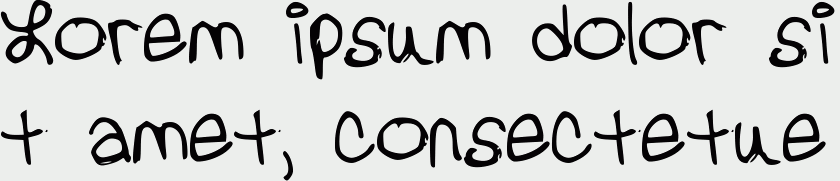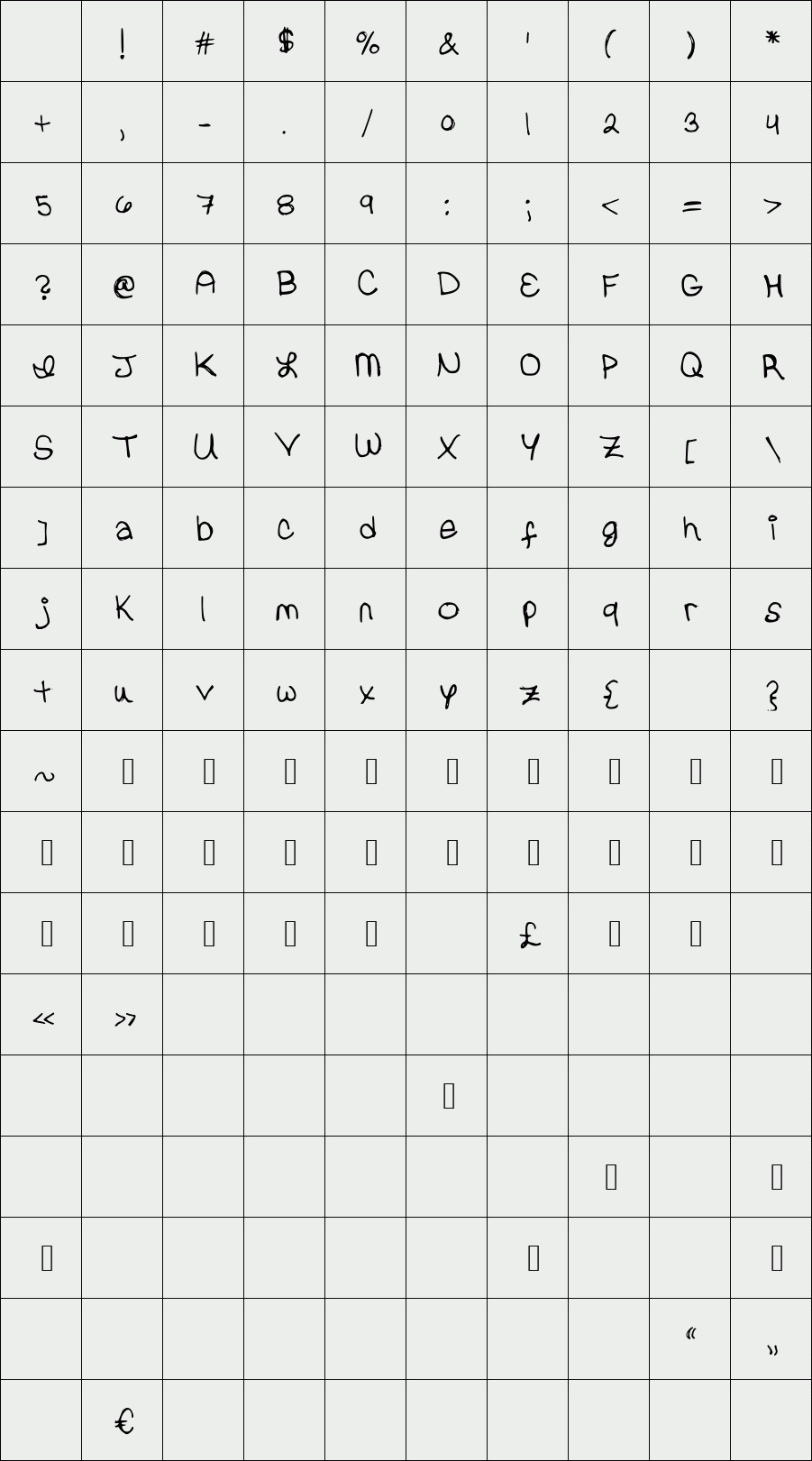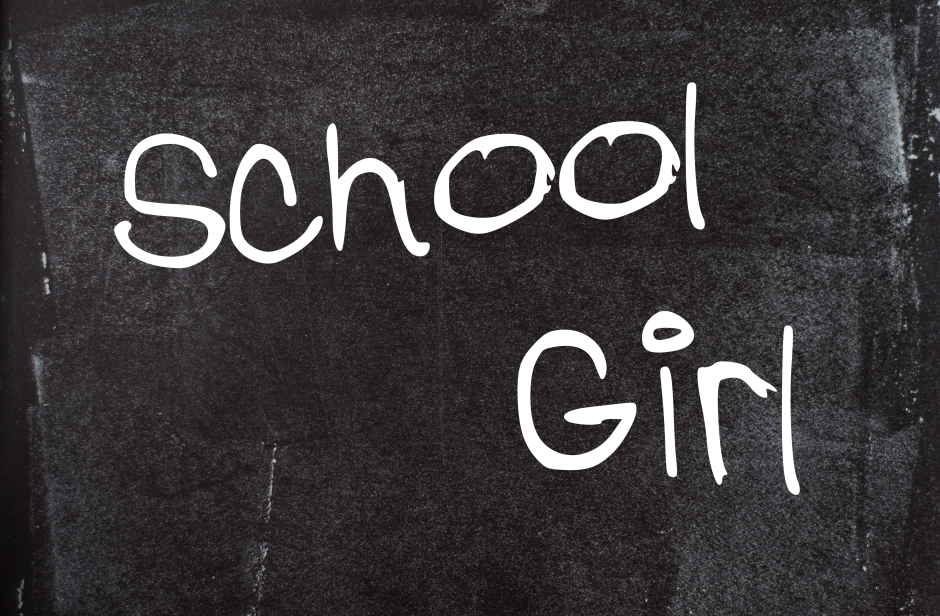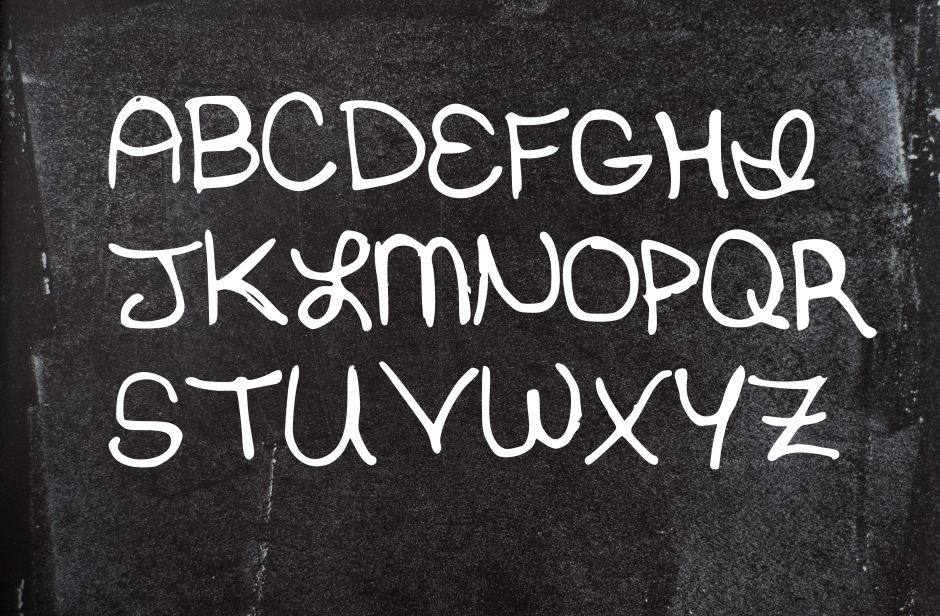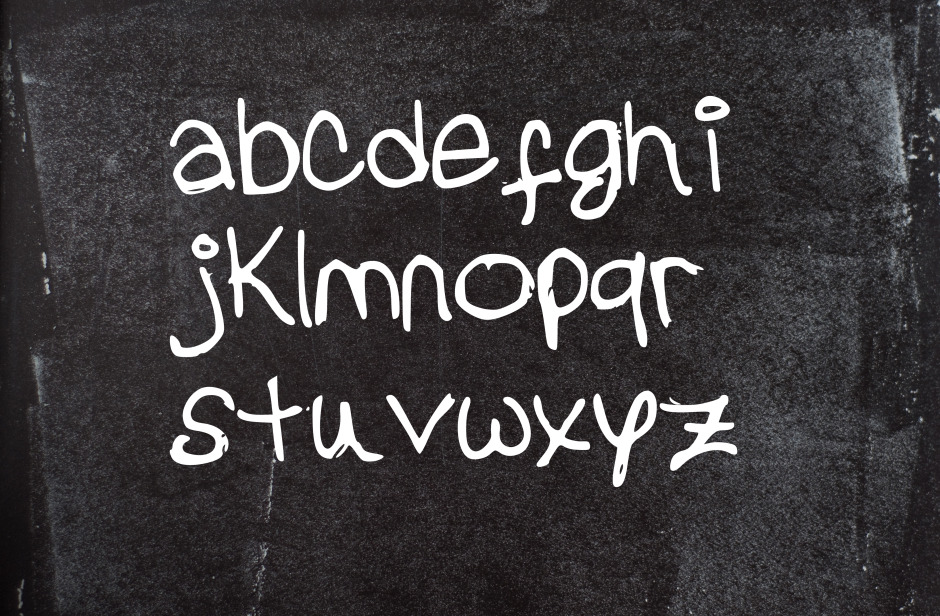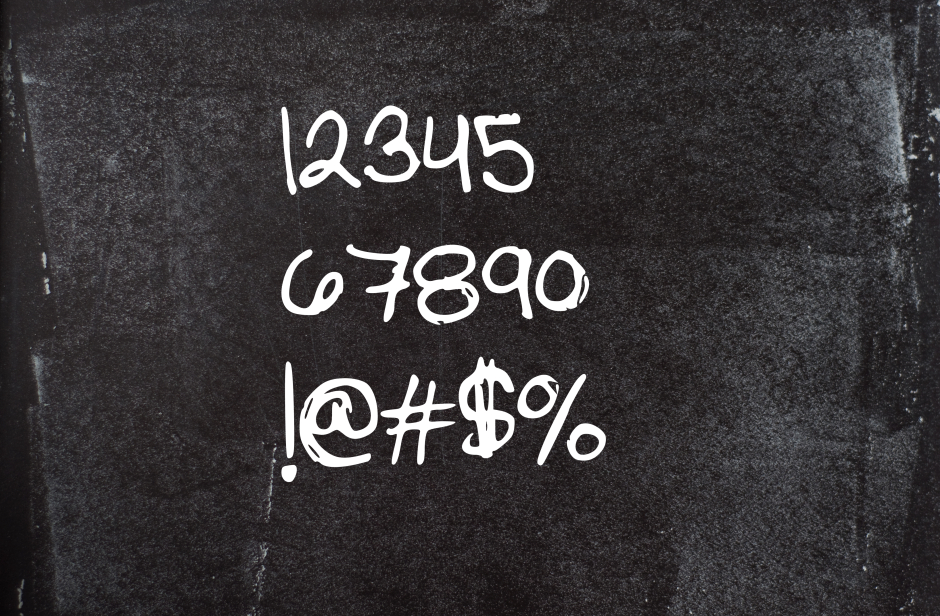
School Girl
"School Girl" is a fun, playful font that can be used to convey a girly and youthful theme. Big, bubbly letters with lots of personality!